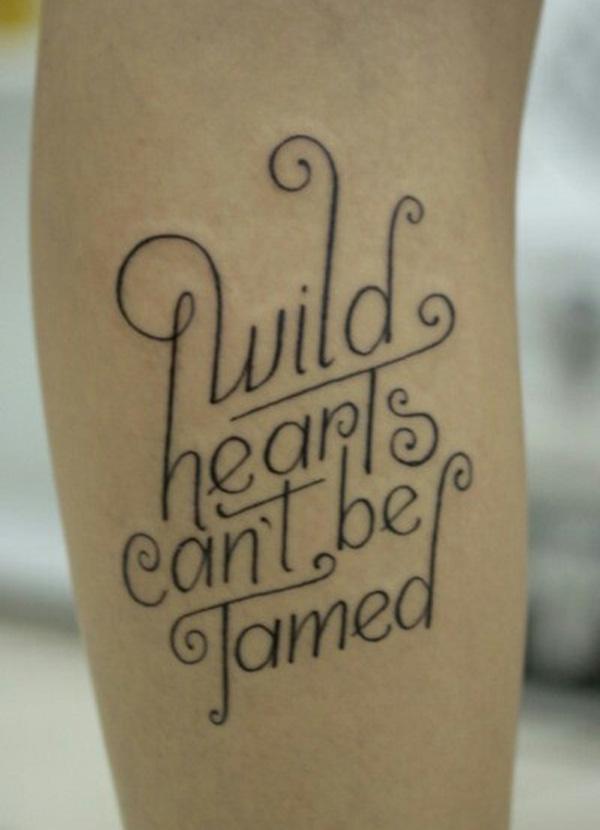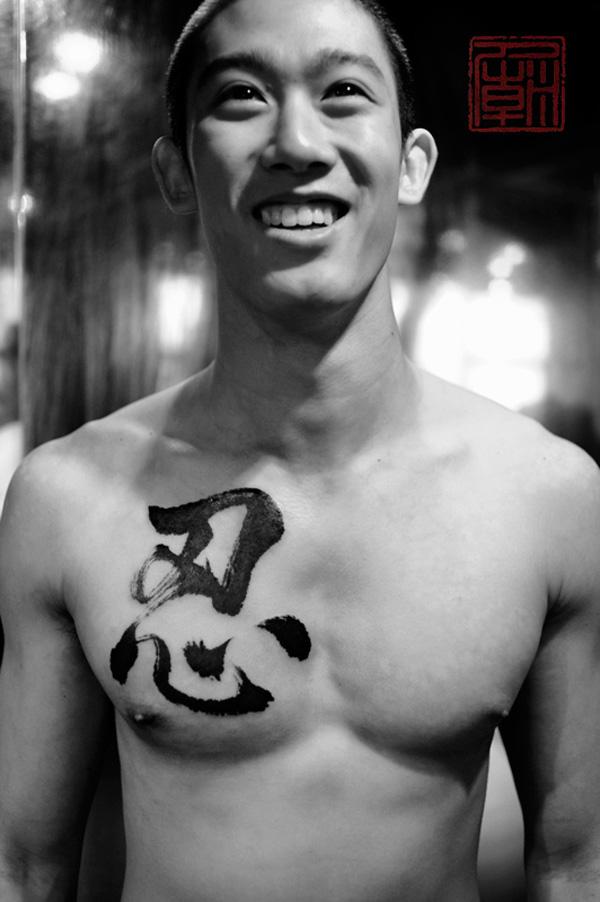
Omerta lettering tattoo Fonts design
Language is one of the many things that distinguish mankind from the rest of mammals. Fonts are the fundamentals of texts of various languages. In the course of evolution of fonts, the magic symbols have been seen as the artistic media to present meanings as well as styling show. Tattoo fonts designs, aka tattoo lettering designs, have been naturally endeavors of the tattooers and loved by people who like to convey precise meanings of their tattoos.
Isn’t it to tedious or dull to use only words in tattoo? Absolutely not, typography can be the same creative as visual pictures. Old English fonts or custom fonts are often used as pure font tattoos, e.g. poems, names and phrases as used in calligraphic tattooing. Fonts are also used as one of elements in other tattoo background, e.g. rose, skull, cross to strengthen the tattoo meanings.
Some people get inspiring quotes tattooed on their bodies. Some people get their names tattooed on their arms as arm tattoos. Fonts can be used in tattoos in variety of ways and styles. In this post, please enjoy the collection of 70 examples of awesome and inspiring tattoo fonts designs in action. All the fonts have been used in the real fonts tattoos, both for men and women if applying different styles or contents. Let us know which one you like the most in the comment.
Classic English fonts for men. The tattoo on the chest is just marvelous.
Japanese tattoo fonts for women in background of Bamboo.
the good die young tattoo
Custom-Lowrider-Style-Forearm-Lettering-Font-Tattoo
3D lettering Tattoo with lily fllowers
Font chest tattoo
“Think Strong, Live Strong” – A positive script tattoo is one’s everyday motto in life.
Font forearm tattoo design
This tattoo features styling font of words – “You will never walk alone”. It’s strong commitment to loved ones.
Font Angle Tattoo Design
This a nice combination of fairytale, butterfly and lettering tattoo.
Letting tattoo design with strong words
Font rib tattoo
Font Dove Hand Tattoo Design
On one hand is the flying dove under the sun. On the other hand is intricate font script.
Chinese Regular Font words
This tattoo depicts words in the book of The Art of War in Chinese regular font type.
Small Font Tattoo on forearm
A very personal moving funeral poem for loved one.
Font cross tattoo
Font neck tattoo for women
The font tattoo design features short words “It Never Ends” on the neck of the woman.
Lyrics Lettering Tattoo Design
Font Chest tattoo
Font upper sleeve tattoo
Font back tattoo
Fonts back tattoo design
The large tattoo features many fonts forming a shape of infinity.
Kanji symbols font
Font Back Tattoo
loving life lettering tattoo
Font forearm tattoo
Font chest tattoo
Lettering Tattoo on upper arm
Lettering rib tattoo
Alphabet fonts tattoo
Font Neck Tattoo
Font forearm tattoo
Custom lettering w Cherry Creek rose tattoo
Awesome text tattoo
Blessed Tattoo
All for you
Cherry tree
roses with name
Font forearm tattoo with words – Dying is easy…
Believe Tattoo design
lettering in dot tattoo
lettering font tattoo
Font tattoo on side
Life is not measured by the number of breaths we take but by the moments that take our breath away
Roses name font tattoo
Font tattoo on arm
Wild hearts can’t be tamed
Font tattoo on hand
Font tattoo on neck
Font tattoo on back
Name tattoo using custom font
Quote tattoo using custom font
There is no love without forgiveness, and there is no forgiveness without love. ~ Bryant H. McGill
Poem tattoo using cursive Chinese fonts
Chinese font tattoo
Font tattoo on chest
Cool font tattoo
Font side tattoo with words – You only live once…
Script font back tattoo
These are some amazing letter tattoo fonts. Even though i like cursive and calligraphy fonts a lot but trying these new creative ones can be exiting.
I’m loving these fonts on the tattoos. I’m searching for a good female chest font.